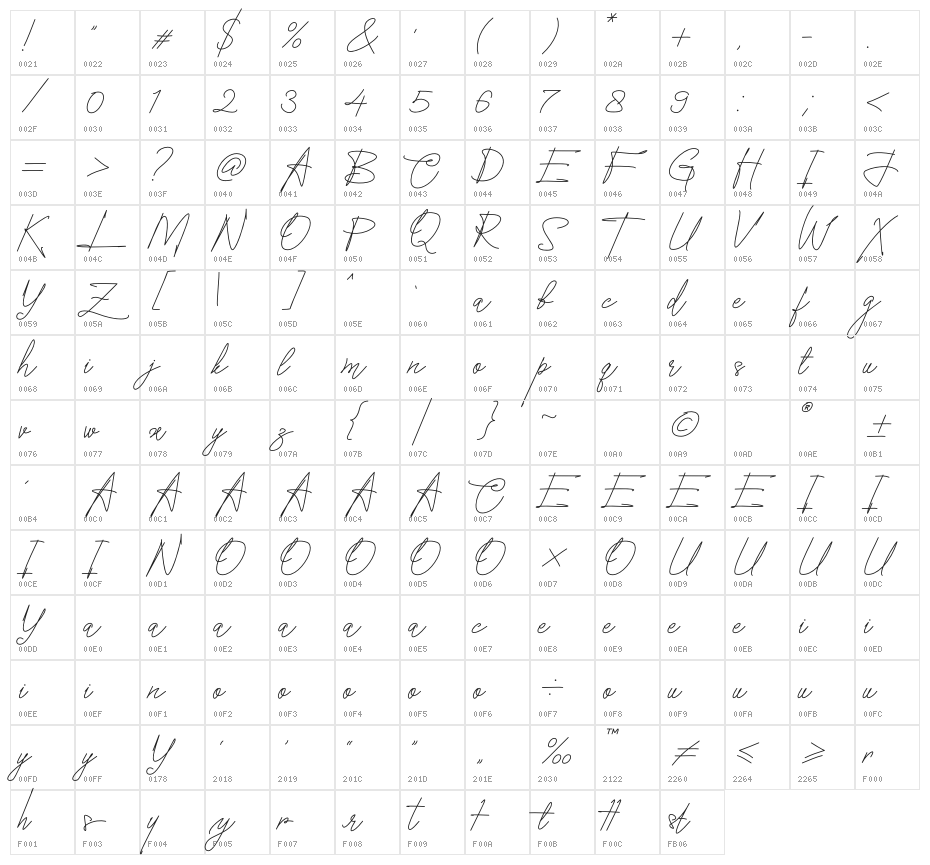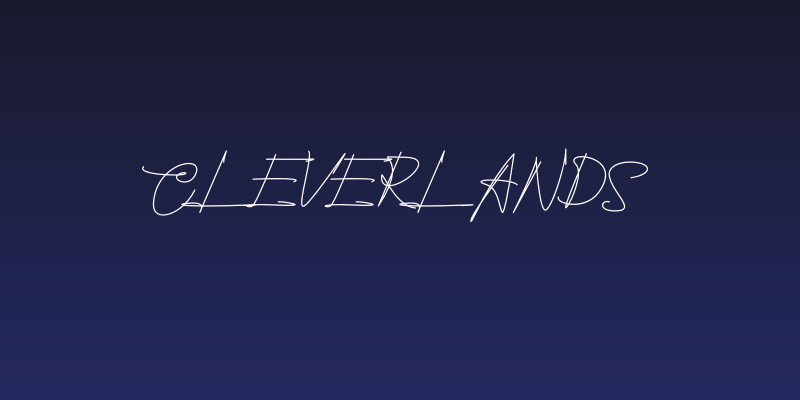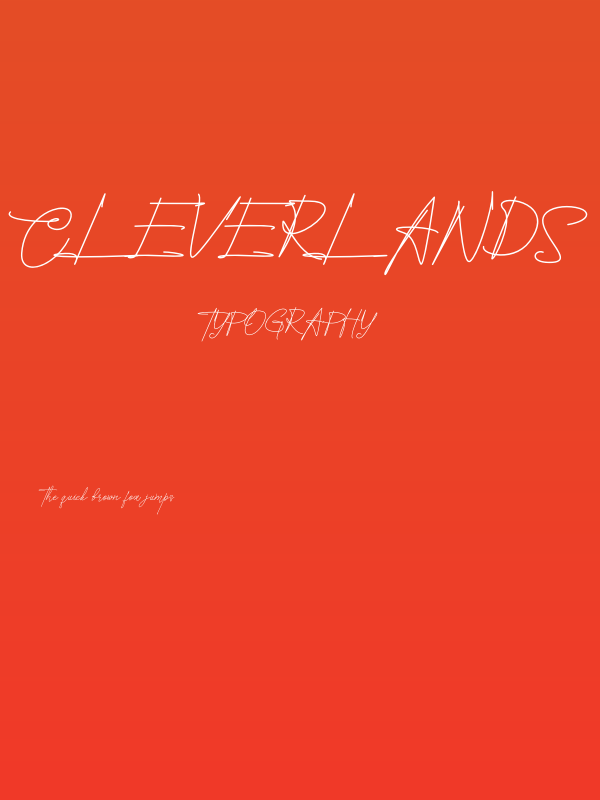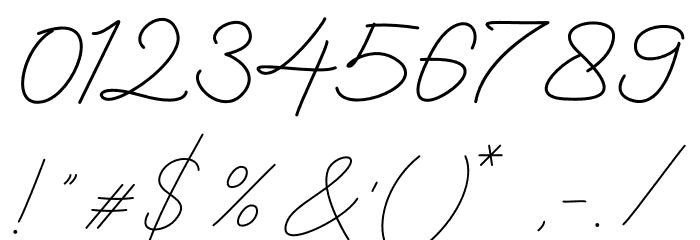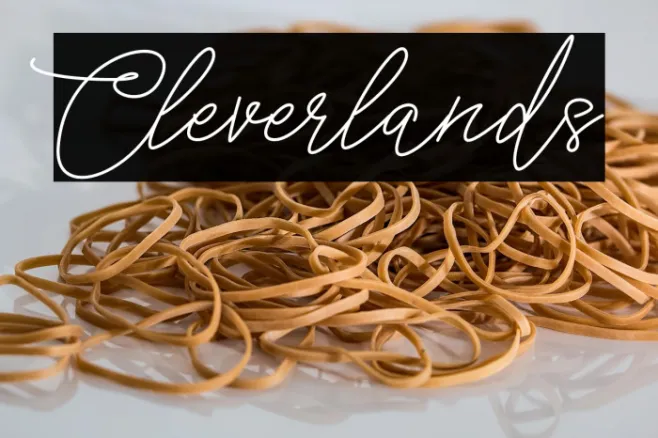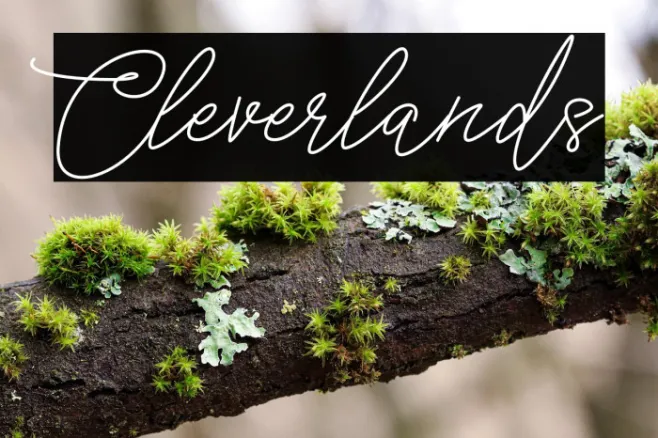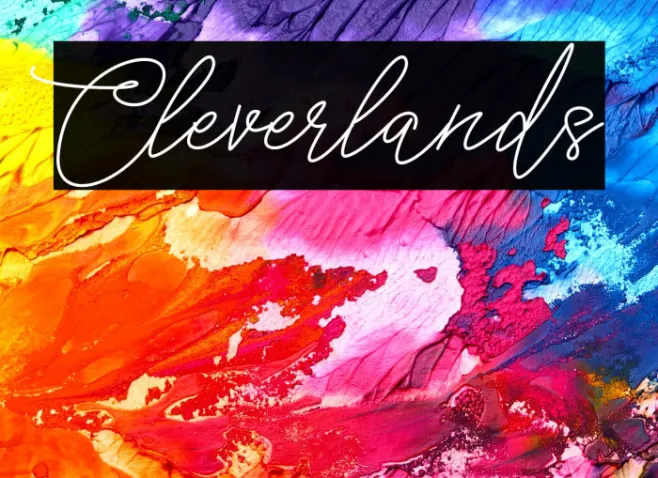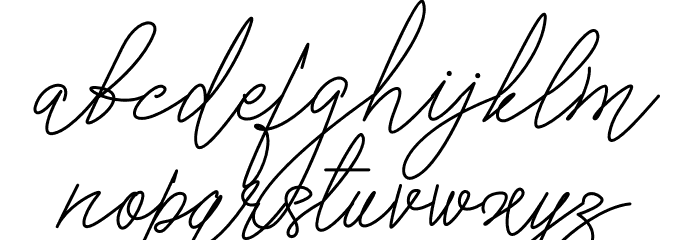
Cleverlands Font
Cleverlands Description
This font features a fluid, cursive style that mimics elegant handwriting. The characters are connected, creating a seamless flow from one letter to the next. The uppercase letters are slightly larger and more elaborate, while the lowercase letters maintain a consistent, graceful appearance. Numbers and special characters are designed to match the overall aesthetic, with smooth curves and delicate lines. The font's thin strokes and slight slant give it a sophisticated and artistic look, making it ideal for projects that require a personal touch.